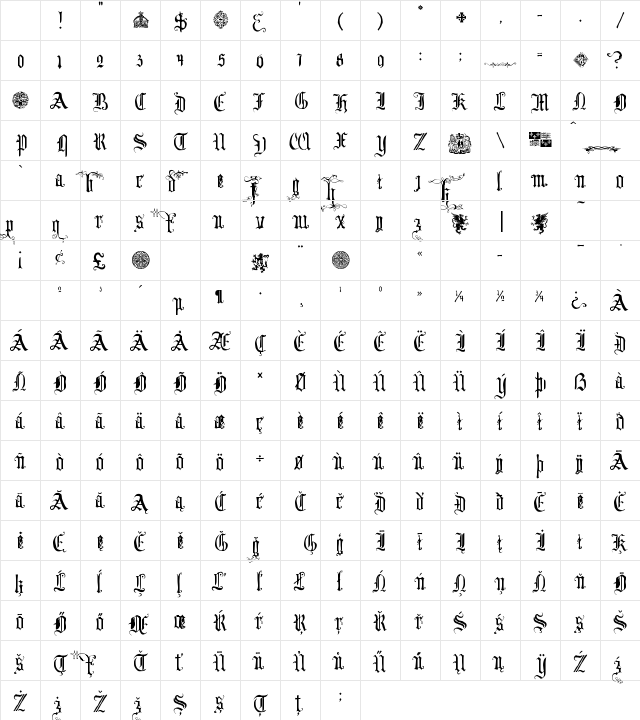
Complete Your Royal Majesty Fancy glyph index. Displaying only characters natively supported by Your Royal Majesty Fancy font.
Your Royal Majesty is a composed and adaptable typeface that performs quietly and consistently across a wide range of design contexts.